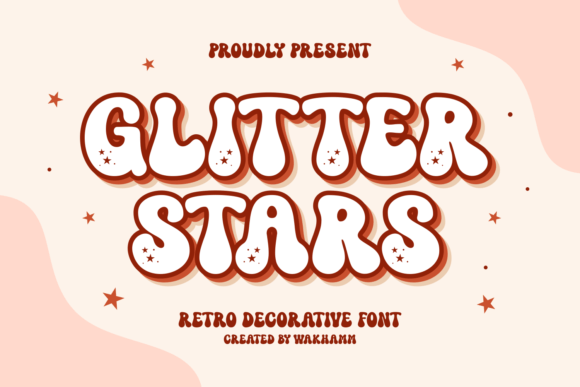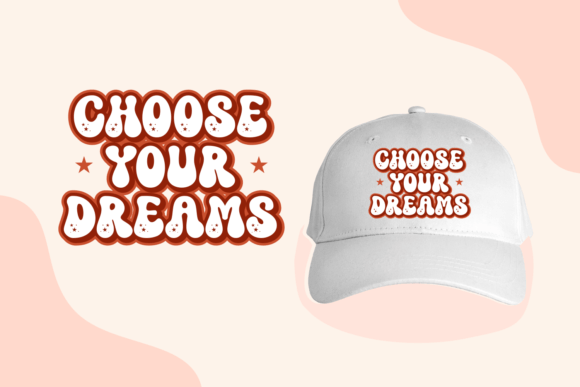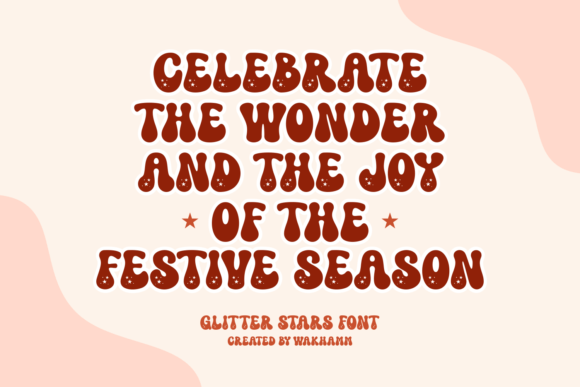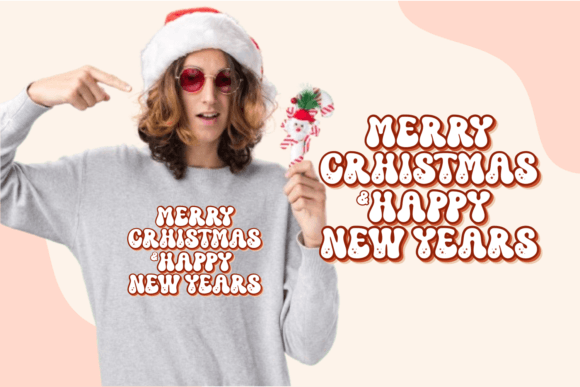
Glitter Stars Font: A Fun Retro Display Font for Cricut & DIY Projects
About the Glitter Stars Font
Make a bold statement with Glitter Stars Font, a powerful and memorable font. Introducing “Glitter Stars,” a decorative display font that sparkles with charm. Each letter is adorned with delicate stars, adding a touch of magic to your designs. Perfect for festive occasions, invitations, or anything that calls for a whimsical and enchanting touch. Let your text shine with Glitter Stars, turning every word into a celestial celebration.
Glitter Stars thrives in display contexts such as headlines, short slogans, and logos where its decorative nature adds visual impact. It’s ideal for branding projects targeting children, crafting, or celebratory events, and works well on packaging for products with a whimsical or festive feel. Avoid using it for body text or UI elements; the star embellishments would hinder readability in extended passages.
Its playful and celebratory personality pairs well with clean sans-serif fonts like Open Sans for a balanced contrast, or a more geometric sans-serif like Futura for a modern feel. For a more luxurious touch, consider pairing it with a classic serif like Garamond. Avoid pairing it with other highly decorative fonts, as this will create visual clutter.
Glitter Stars is best suited for projects requiring a lighthearted and magical aesthetic. Its charm works well in promoting products or events with a sense of wonder and joy.
Glitter Stars Font Usage Examples
Glitter Stars Font Example